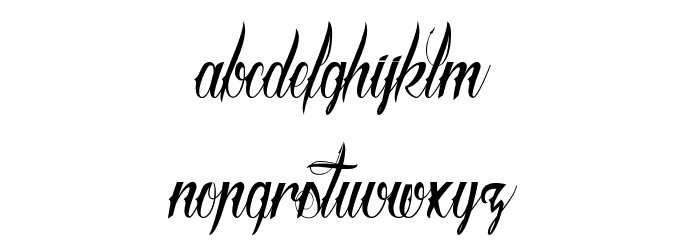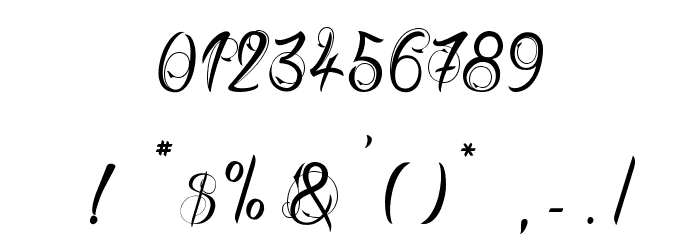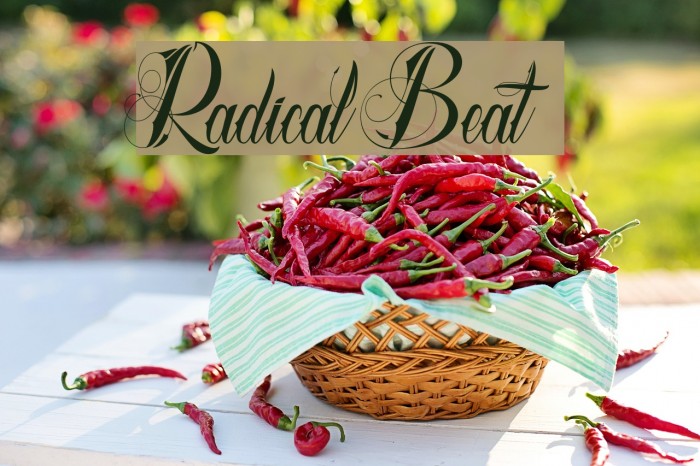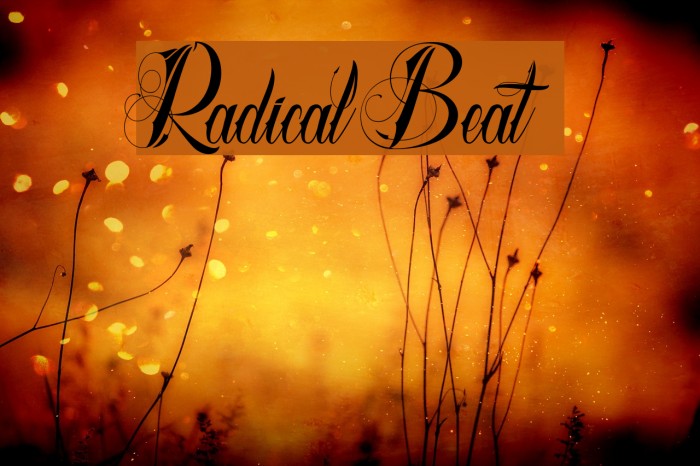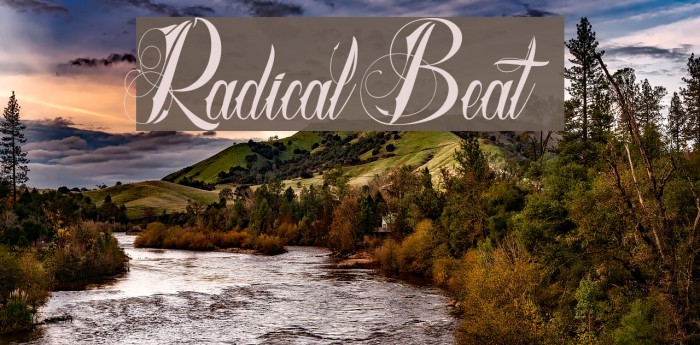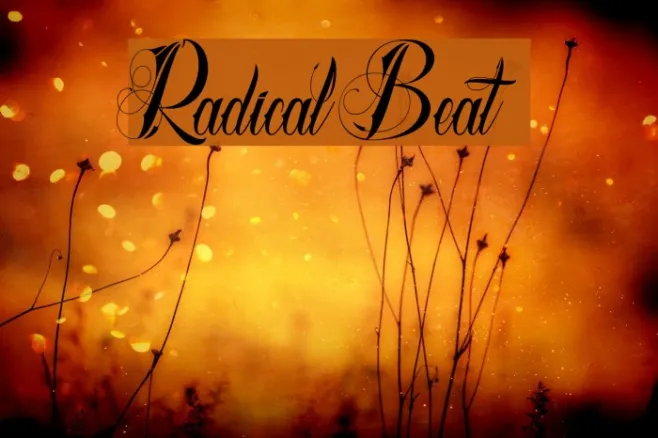
Radical Beat Font
This font features an elaborate and decorative script style, characterized by its intricate swirls and flourishes. The uppercase letters are particularly ornate, with each character adorned with loops and curls that give it a sense of elegance and sophistication. The lowercase letters maintain a more streamlined appearance but still carry the decorative essence of the font. The numerals and special characters also incorporate these embellishments, ensuring a cohesive aesthetic throughout. This font is ideal for projects that require a touch of luxury and artistic flair, such as wedding invitations, high-end branding, or decorative headlines.
An ornate script font with intricate swirls and flourishes.
- Proposed Projects: Wedding invitations, luxury branding, decorative headlines.
- Use Case: Logos, Headlines